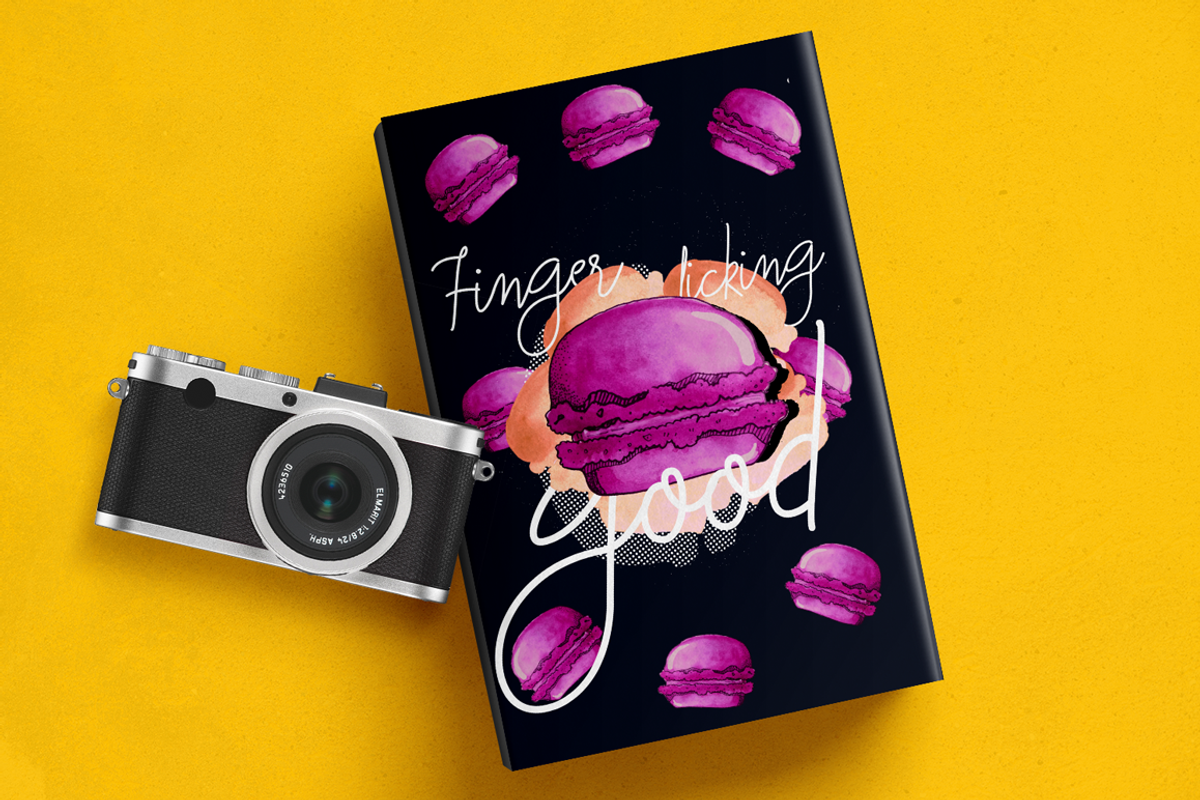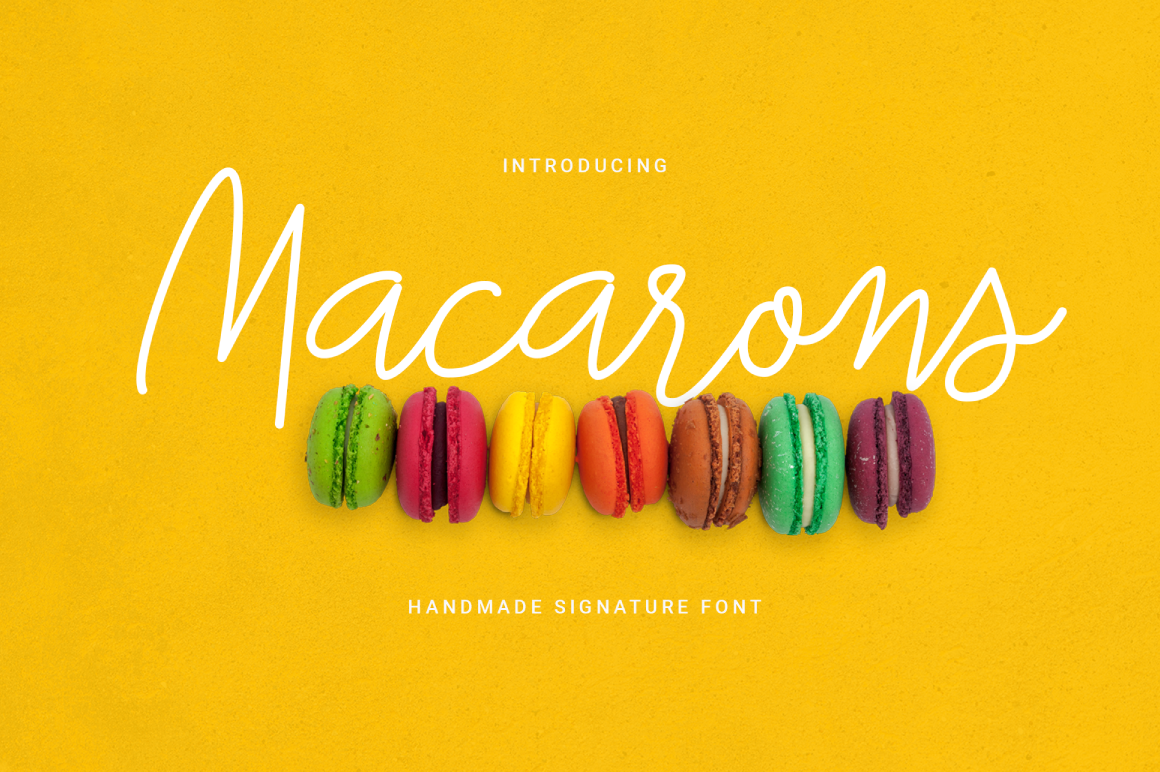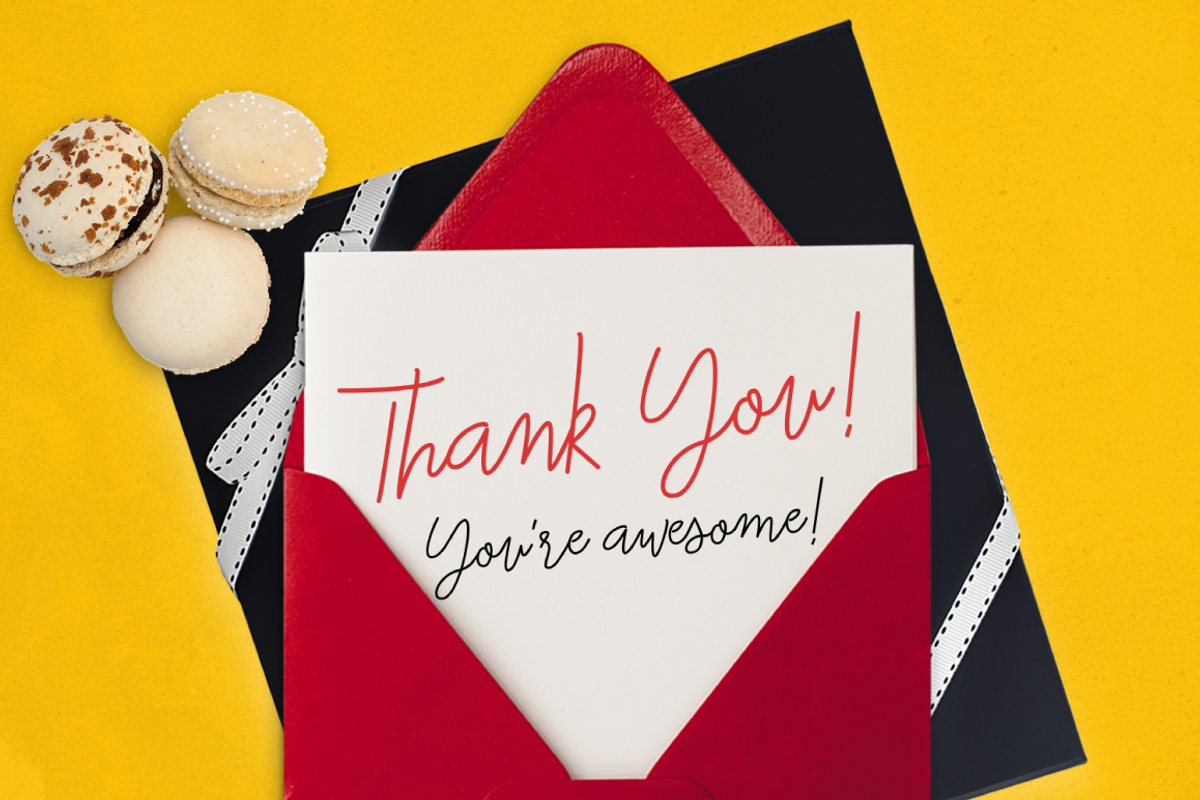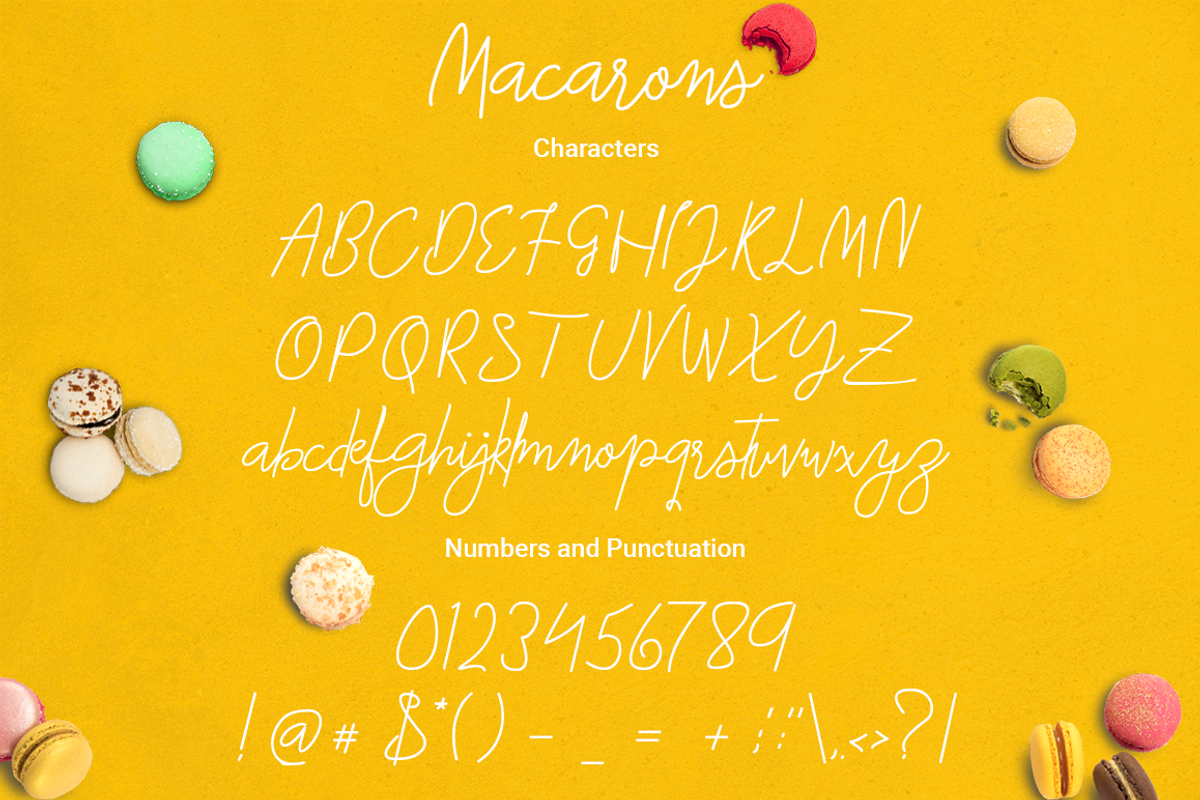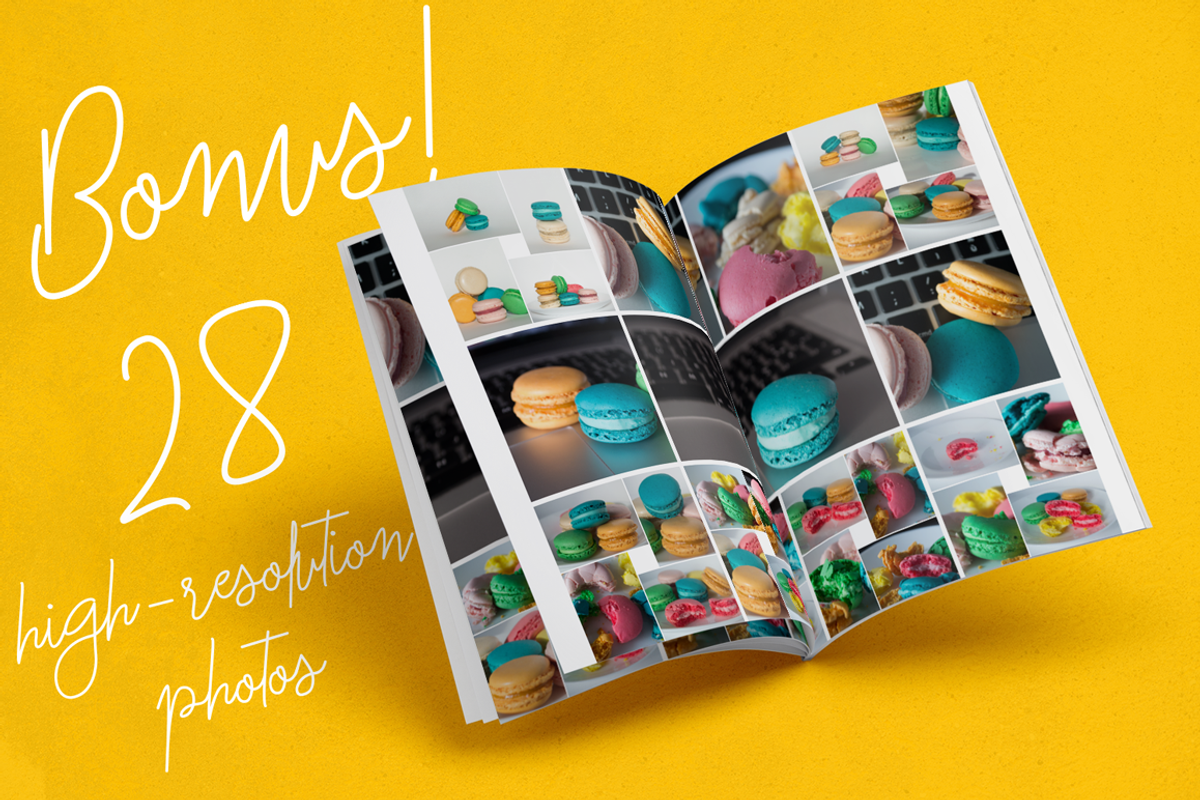
Macarons Font and Extras
Introducing Macarons! Font and Extras.
A delightful hand-drawn signature script with an elegant yet playful nature, inspired by the french Alps and french cuisine, Macarons makes for a charming addition to any logo, name tag, handwritten quotes, product packaging, merchandise, social media & greeting cards, badges, labels, blog headlines or anything requiring a sprinkle of elegance.
It also includes a bonus high-resolution photo pack, featuring 28 macaron photos designed to boost your creativity.